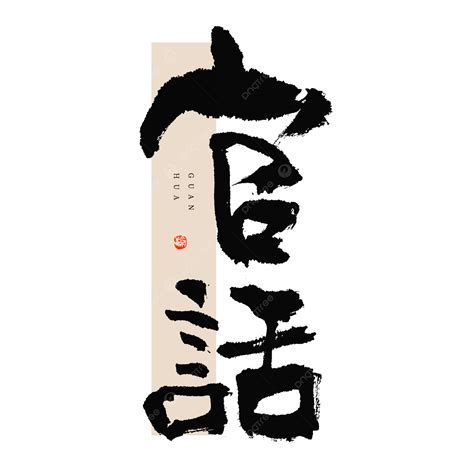
Centennial of Zhongshan SemiCursive Script Chinese Font Style Manual
Mandarin Calligraphy Font. Web senty snow mountain handwriting is a handwriting calligraphy free font that sets in simplified chinese characters.
Web senty snow mountain handwriting is a handwriting calligraphy free font that sets in simplified chinese characters.
Web senty snow mountain handwriting is a handwriting calligraphy free font that sets in simplified chinese characters. Web senty snow mountain handwriting is a handwriting calligraphy free font that sets in simplified chinese characters.